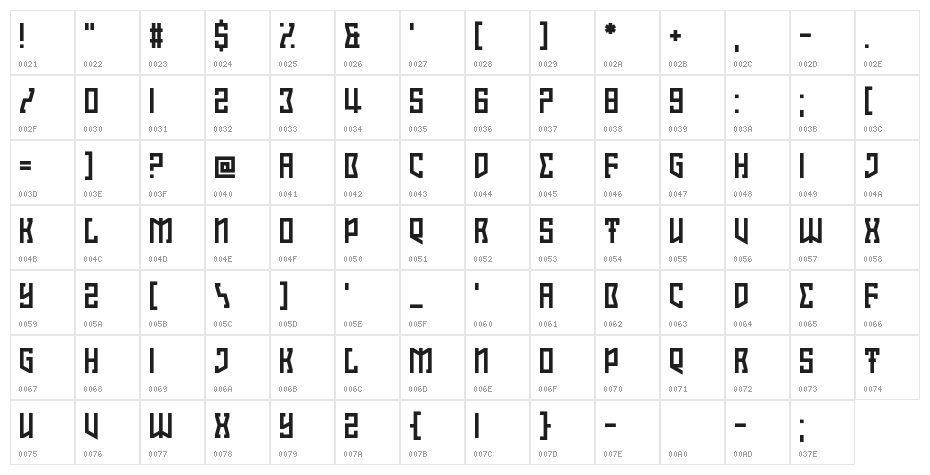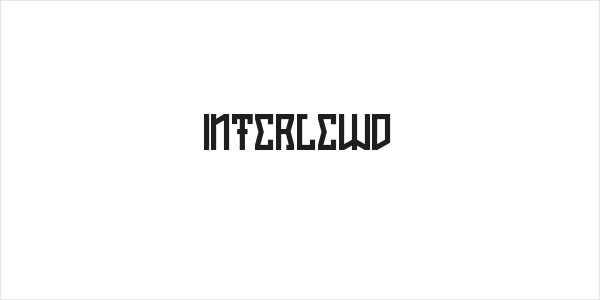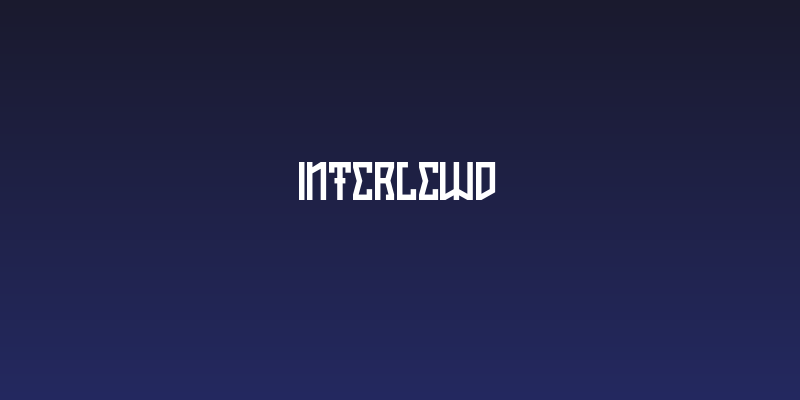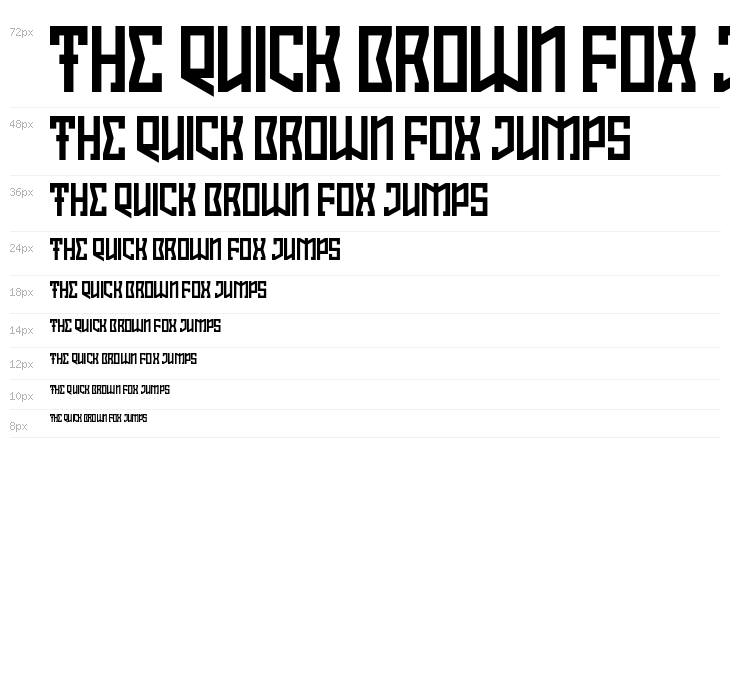
Interlewd Font
Interlewd Description
This font features a bold and geometric design, characterized by its angular and blocky letterforms. The uppercase and lowercase letters share a consistent height, giving it a monospaced appearance. The strokes are thick and uniform, contributing to a high contrast look. The overall style is modern and edgy, with a futuristic vibe. The numerals and special characters maintain the same geometric style, ensuring visual consistency across all elements. This font is highly legible and makes a strong visual impact, suitable for attention-grabbing designs.
Proposed ProjectsIdeal for posters, logos, video game graphics, and sci-fi themed projects.